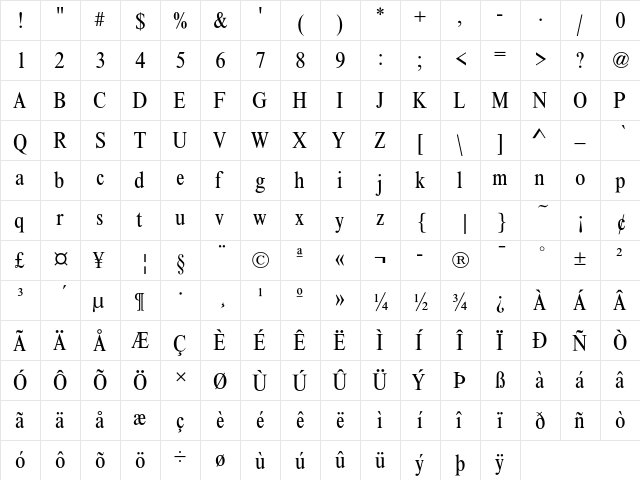
Nimbus Roman No9 Cond L Regular Font Preview
Nimbus Roman No9 Cond L Regular
Design Context for Nimbus Roman No9 Cond L Typeface
Nimbus Roman No9 Cond L offers clean, dependable letterforms without strong stylistic allegiance, making it a practical choice for designers who need flexibility. Its narrow stance lets it pack a punch even in space-constrained designs.
Pro Tip: Pair Nimbus Roman No9 Cond L with a font of contrasting weight or personality to build a more expressive typographic hierarchy.